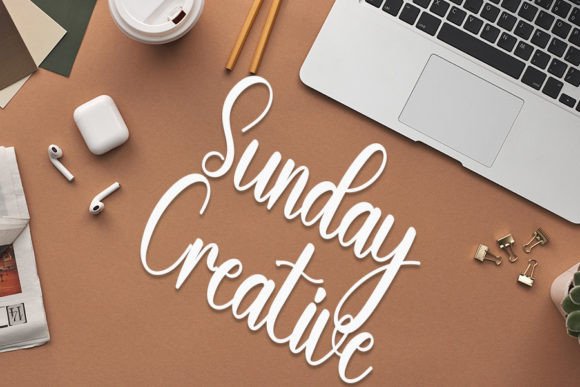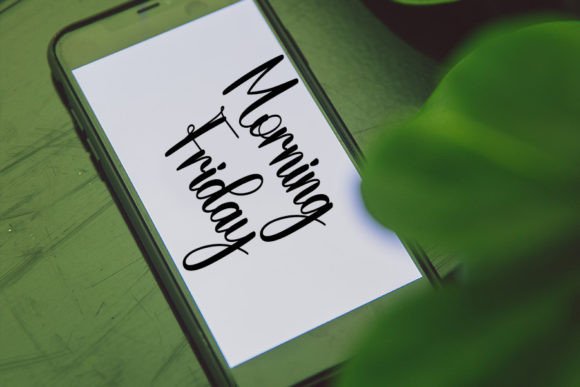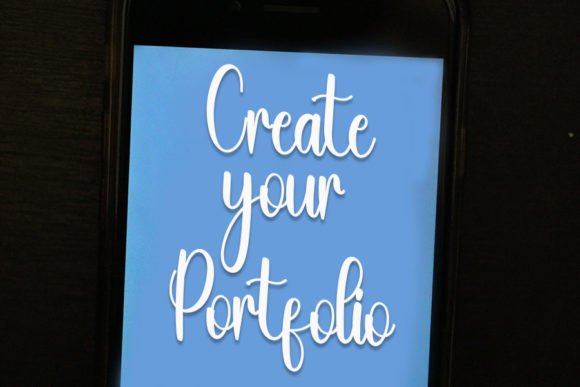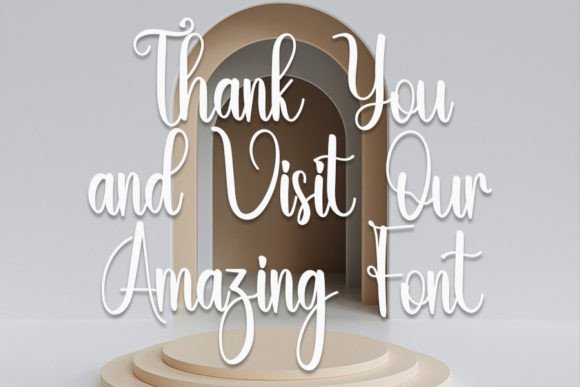
Introducing Digital: A Friendly Handwritten Font to Elevate Your Creative Projects
In the world of digital design, typography plays a crucial role in conveying messages, expressing emotions, and creating a lasting impression. A well-crafted font can make all the difference in bringing your creative projects to life. This is where Digital, a friendly handwritten font, comes into play. Designed with care and attention to detail, Digital is poised to become a true favorite among designers, crafters, and creative enthusiasts.
The Story Behind Digital
Digital is more than just a font; it’s a tool designed to add a personal touch to your projects. Its friendly and approachable style makes it perfect for a wide range of applications, from digital marketing materials and social media graphics to handmade crafts and DIY projects. The font’s creator aimed to develop a typeface that is both versatile and endearing, allowing users to infuse their work with a sense of warmth and personality.
Key Features of Digital Font
- Handwritten Style: Digital boasts a beautiful, handwritten aesthetic that adds a human touch to any project. Its strokes are smooth and fluid, mimicking the natural flow of handwriting.
- Readability: Despite its artistic nature, Digital is highly legible, making it suitable for both headings and body text. This versatility ensures that it can be used across various mediums, from digital screens to print materials.
- Emotional Connection: The font’s friendly demeanor helps create an emotional connection with the audience. It’s perfect for projects where you want to convey warmth, approachability, and sincerity.
- Wide Range of Applications: Whether you’re working on a branding project, crafting a social media post, designing a greeting card, or creating a DIY craft, Digital can enhance your work with its unique charm.
Digital offers numerous benefits for designers and crafters looking to elevate their projects:
- Time-Saving: With Digital, you can achieve a professional, handmade look without spending hours on custom lettering.
- Consistency: Using a consistent font across your projects helps in building a recognizable brand identity. Digital’s unique style ensures that your work stands out while maintaining a cohesive look.
- Inspiration: Sometimes, all you need is a little inspiration to kickstart your project. Digital’s friendly style can spark creativity and guide your design decisions.
Tips for Using Digital Font Effectively
To make the most of Digital, consider the following tips:
- Mix and Match: Combine Digital with other fonts to create visual interest. Its handwritten nature pairs well with both serif and sans-serif fonts.
- Play with Sizes: Use varying font sizes to emphasize certain words or phrases, adding depth and hierarchy to your design.
- Color It Right: Choose colors that complement the friendly vibe of Digital. Pastels, bright colors, and gradients can enhance its appeal.
- Experiment with Effects: Don’t be afraid to add effects like shadows, outlines, or textures to give your text an extra dimension.
Digital is more than just a font; it’s a creative companion designed to bring a friendly, approachable vibe to your projects. Whether you’re a professional designer or a crafting enthusiast, Digital can help you create stunning, engaging content that resonates with your audience. With its readability, versatility, and charming handwritten style, Digital is set to become a favorite in your font library. So, go ahead and let Digital bring your creative projects to life in a way that feels both personal and professional.
Embrace the warmth and personality that Digital has to offer, and watch your designs transform with a touch of handwritten elegance.